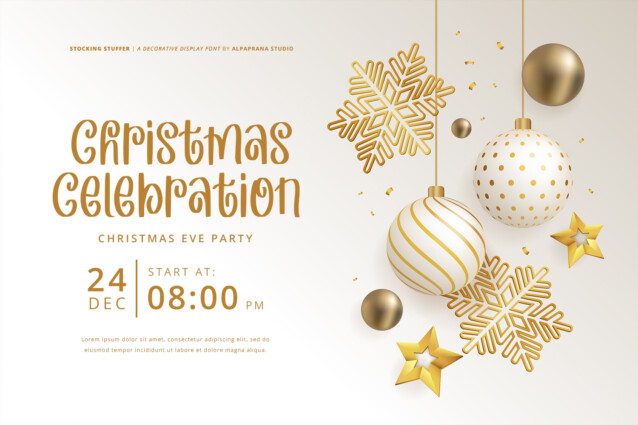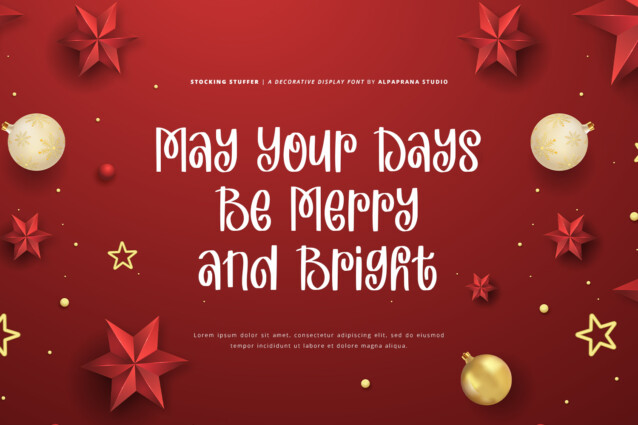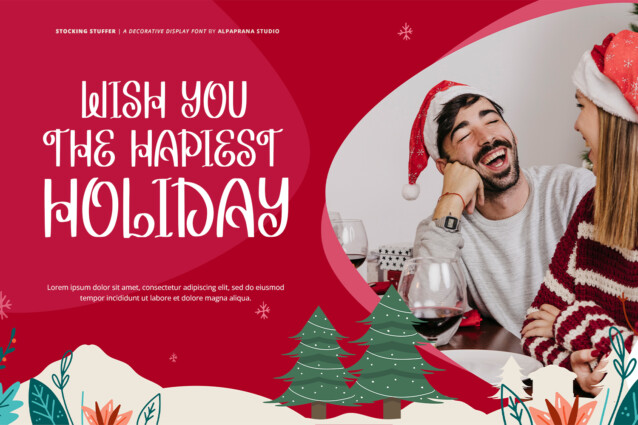
Stocking Stuffer Script Font
Stocking Stuffer Script Font is a decorative display font with cute and modern style. It will be perfectly used for Branding, Logo Design, Lettering, Logotype, Clothing, Poster, magazine, packaging, posters, shopping bags, t-shirts, book covers, photography, special events and other design project.